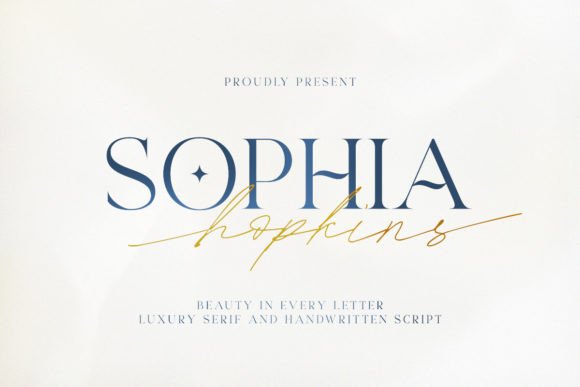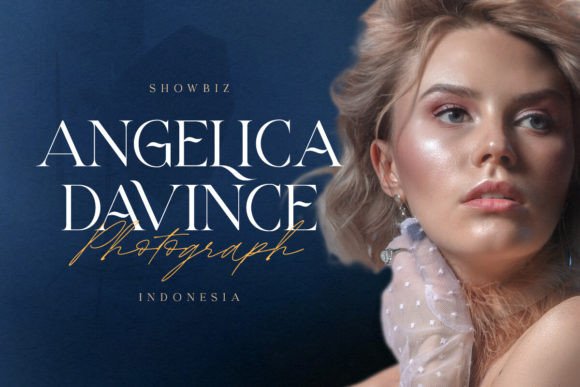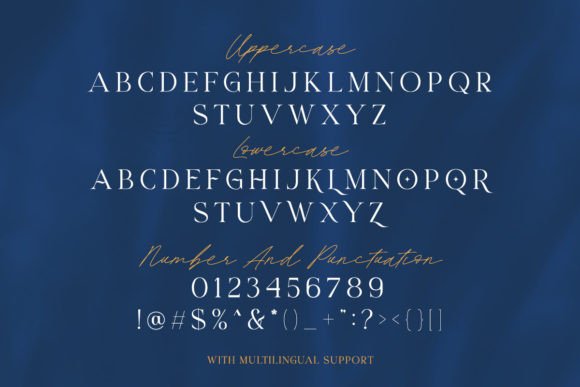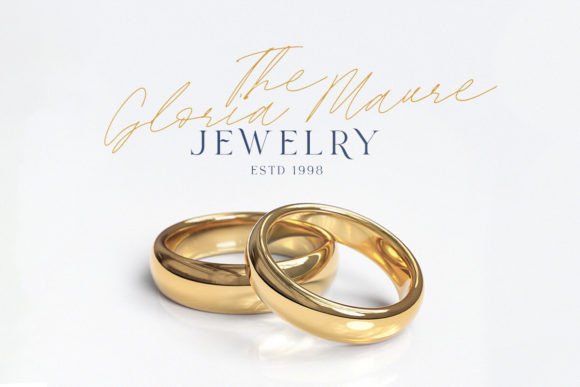
Sophia Hopkins Font: Elegant Serif & Script for Wedding Design
About the Sophia Hopkins Font
Discover the charm of Sophia Hopkins Font. This font is a perfect blend of modern aesthetics and classic appeal. Sophia Hopkins is a beauty font duo that contains stylish serif and handwritten script. You can use this font for any purpose such as branding, wedding invitations, logos, and quotes. With stylish lowercase at-serif font, you can combine the lowercase and uppercase in the same word to make it more stunning. The script also contains a terminal and end swash.
Sophia Hopkins Font Usage Examples
Sophia Hopkins Font Example